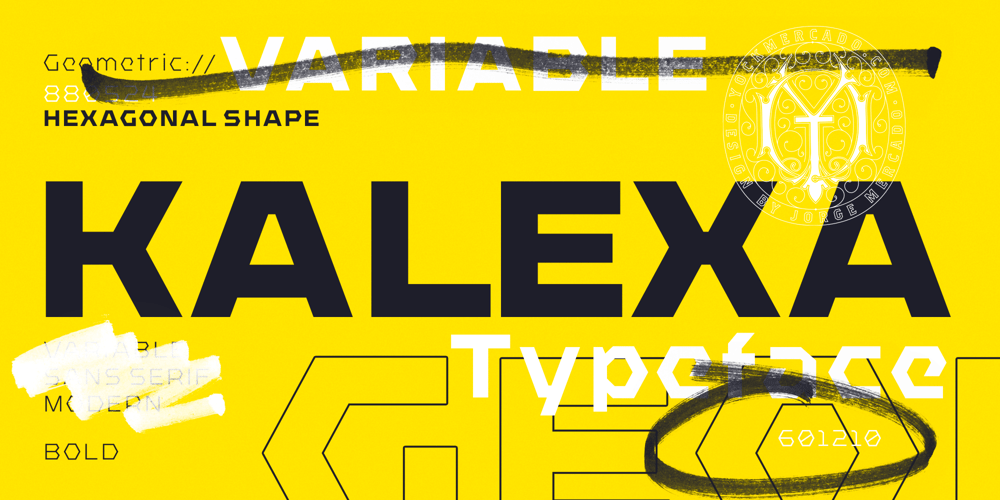
Kalexa
Kalexa font
Kalexa Font Family was designed by Jorge Mercado and published by Yock Mercado. Kalexa contains 6 styles and family package options. Kalexa, a name inspired by the fusion of kaleidoscope and hexagon, is a modern typeface created from geometric lines based on the hexagon’s shape. It draws inspiration from low poly and heavy industrial typefaces, reflecting modernity, simplicity, and power. With its sleek and minimalist design, Kalexa emerges as a disruptive force.Thanks to its 6 font weights, it is highly versatile, making it suitable for a myriad of projects across various themes, ranging from sports designs and industrial brands to technology projects. It adheres to the trend of bold and unconventional shapes while maintaining excellent readability.Available in a variable version for precise control over font weights, Kalexa unlocks endless possibilities for designers to craft captivating visual experiences. Each line becomes a brush of creativity, walking the line to new frontiers of design expression.